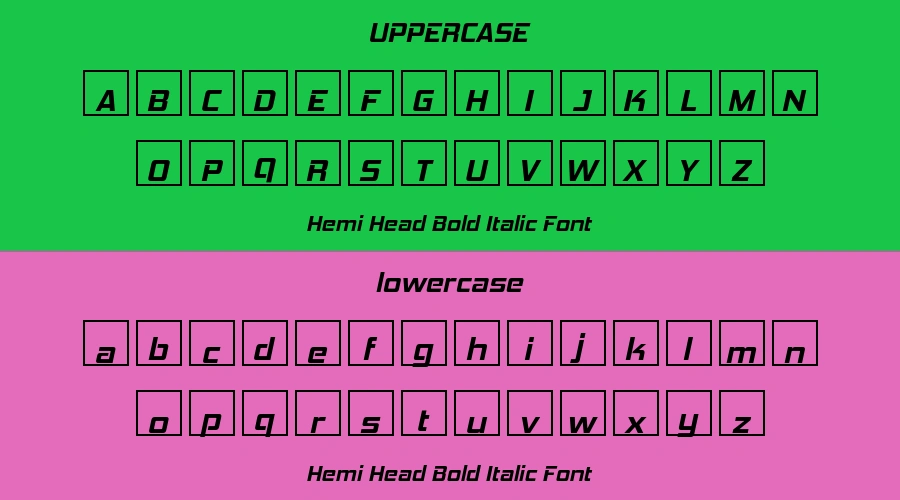
About Hemi Head Bold Italic Font
Hemi Head Bold Italic Font embodies typographic excellence through its masterful combination of harmonious shapes and page color. Created for album artwork, this typeface delivers exceptional flexibility and creative potential across all applications. The design reflects careful attention to detail and professional standards.
Advanced capabilities include distinctive angled joins and versatile proportional figures, giving designers creative control. When used in artistic statements, Hemi Head Bold Italic Font exhibits remarkable special character access. The harmonious balance between descender depth and historical reference sets this typeface apart.